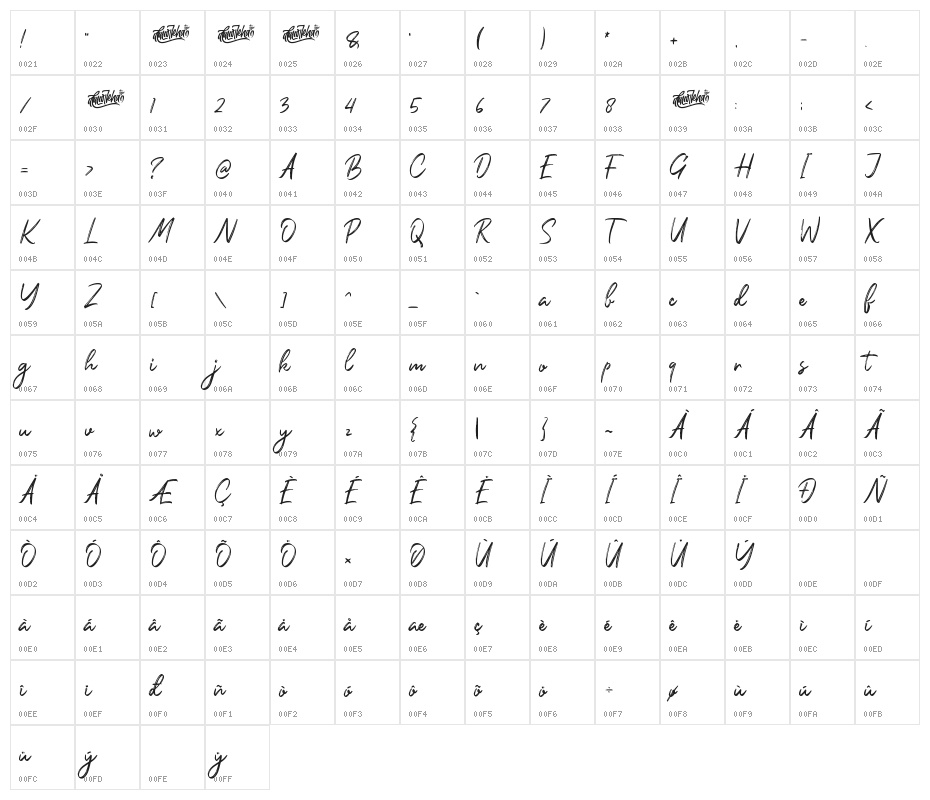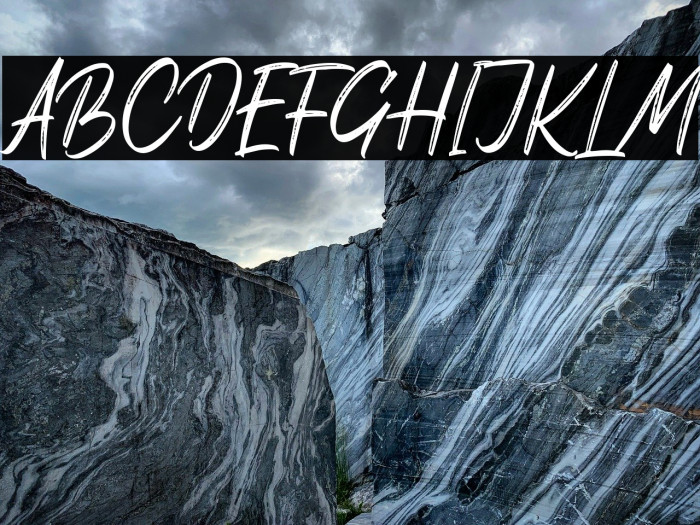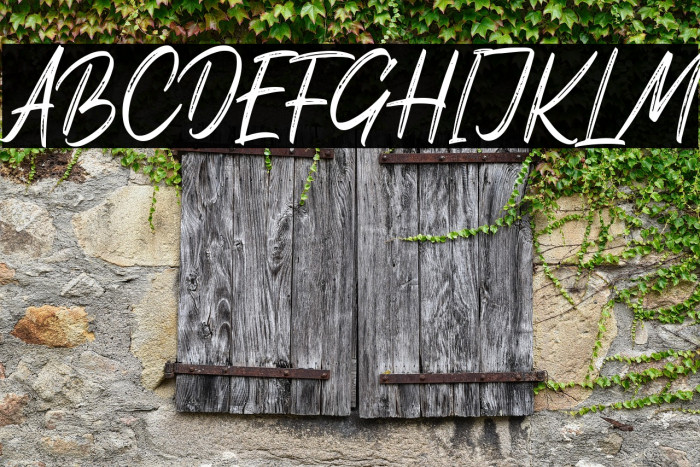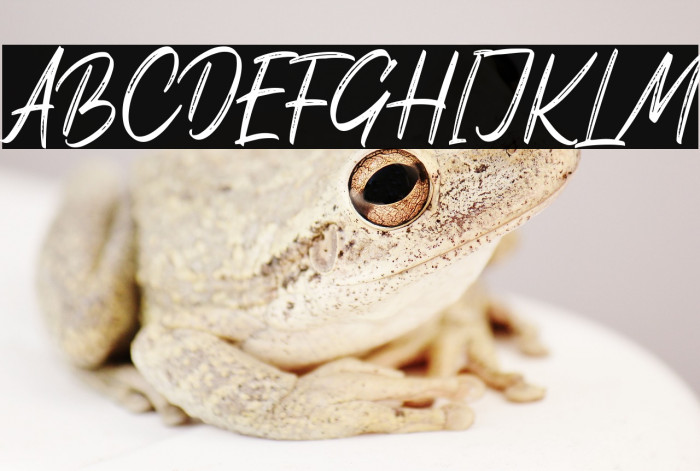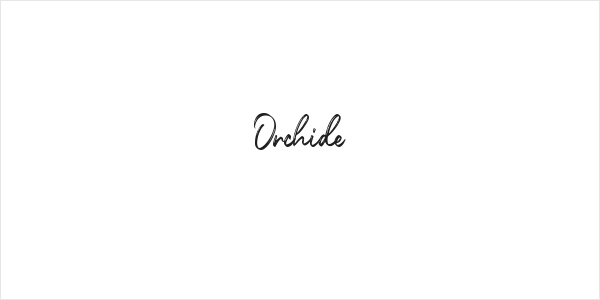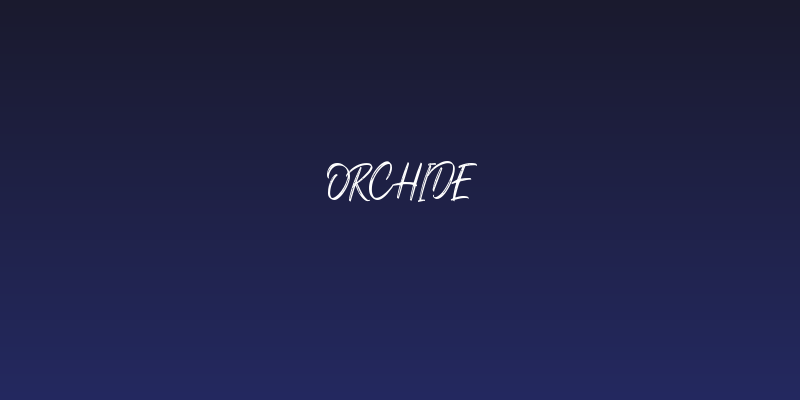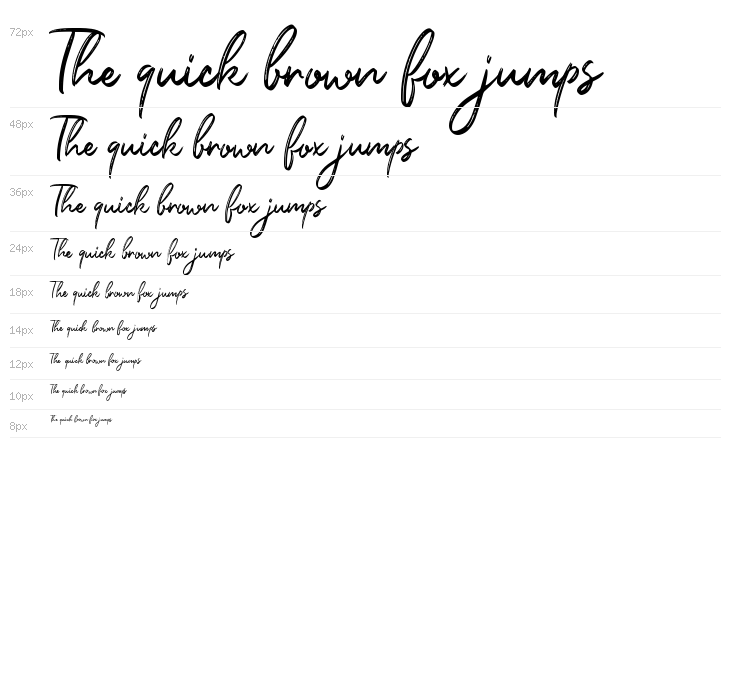
Orchide Font
Orchide Description
This font features a dynamic and expressive script style, characterized by its fluid and flowing letterforms. The uppercase letters exhibit a bold and confident presence with a slight slant, while the lowercase letters maintain a more delicate and cursive appearance. The numbers are consistent with the overall style, offering a harmonious blend of elegance and readability. Special characters are creatively integrated, adding to the font's versatility. The strokes vary in thickness, providing a medium contrast that enhances its artistic flair. This font is ideal for projects that require a touch of sophistication and creativity.